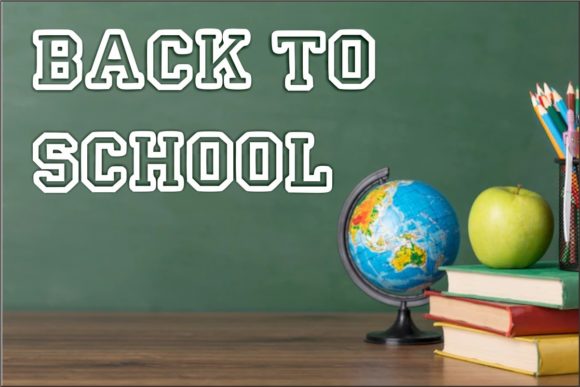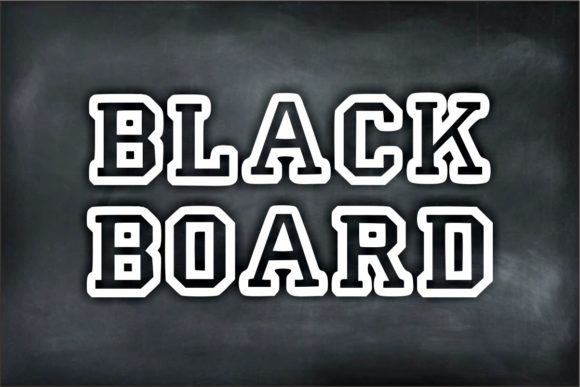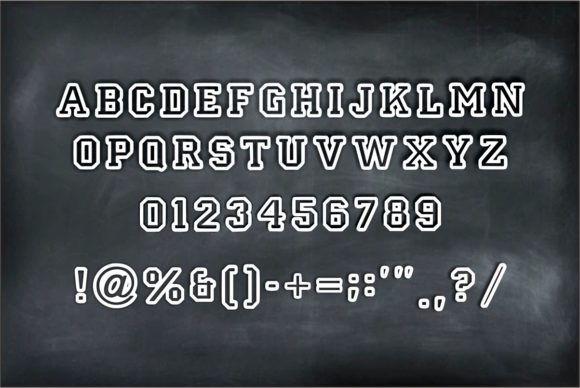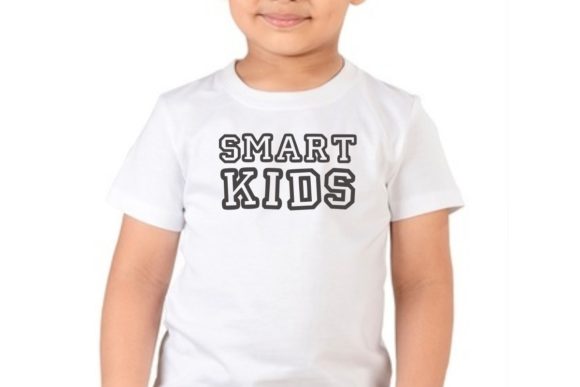
Introducing Dark Line Font: Elevate Your Designs with Elegance
Are you a designer, crafter, or digital artist looking for a font that exudes elegance and sophistication? Look no further than Dark Line Font. This stunning bold line display font is perfect for a variety of projects, from crafts and digital design to presentations and greeting cards. In this article, we’ll dive into the world of Dark Line Font and explore its features, uses, and benefits.
What is Dark Line Font?
Dark Line Font is a beautifully crafted font that features bold, elegant lines. Its unique design makes it stand out from other fonts, adding a touch of sophistication to any project. Whether you’re creating a digital design, a craft project, or a presentation, Dark Line Font is sure to impress.
Key Features of Dark Line Font
- Elegant and sophisticated design: Dark Line Font features bold, elegant lines that add a touch of sophistication to any project.
- Versatile: This font is perfect for a variety of projects, including crafts, digital design, presentations, and greeting cards.
- Easy to read: Despite its bold design, Dark Line Font is easy to read, making it perfect for headlines, titles, and other applications where readability is key.
- Scalable: Dark Line Font is highly scalable, making it perfect for projects of all sizes.
Uses of Dark Line Font
Dark Line Font is a versatile font that can be used in a variety of projects, including:
- Crafts: Add a touch of elegance to your craft projects, such as scrapbooking, card making, and DIY home decor.
- Digital design: Use Dark Line Font in your digital designs, such as social media graphics, blog posts, and website headers.
- Presentations: Add a professional touch to your presentations with Dark Line Font.
- Greeting cards: Create beautiful greeting cards with Dark Line Font.
Benefits of Using Dark Line Font
There are many benefits to using Dark Line Font in your projects. Here are a few:
- Adds elegance and sophistication: Dark Line Font adds a touch of elegance and sophistication to any project.
- Versatile: This font can be used in a variety of projects, making it a great addition to your font library.
- High-quality: Dark Line Font is a high-quality font that is designed to produce crisp, clear results.
Tips for Using Dark Line Font
Here are a few tips for using Dark Line Font in your projects:
- Use it sparingly: Dark Line Font is a bold font, so use it sparingly to add emphasis to your designs.
- Experiment with colors: Try pairing Dark Line Font with different colors to add depth and interest to your designs.
- Mix and match: Experiment with mixing and matching Dark Line Font with other fonts to create unique and interesting designs.
Dark Line Font is a stunning bold line display font that is perfect for designers, crafters, and digital artists. Its elegant and sophisticated design makes it a great addition to any project, from crafts and digital design to presentations and greeting cards. With its versatility, ease of use, and high-quality design, Dark Line Font is a must-have font for anyone looking to elevate their designs.